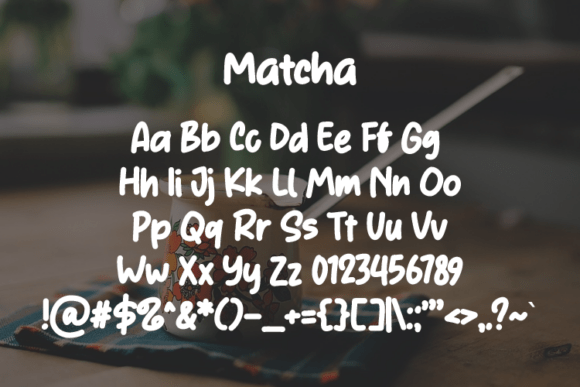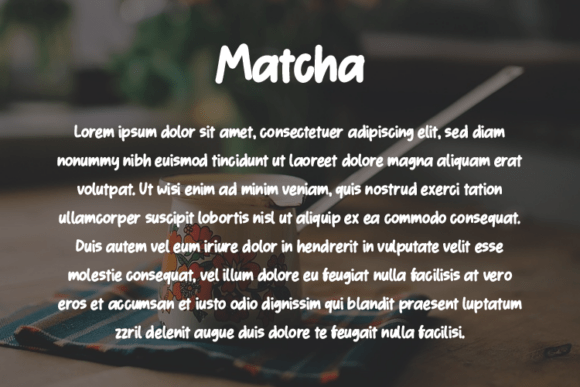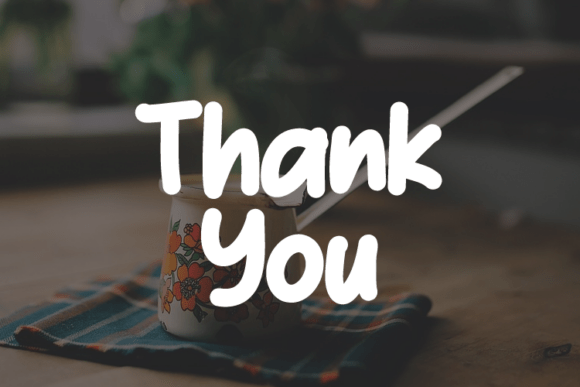
Introduction to Matcha Font
Remember that moment when you’re working on a creative project and you can’t find the right font to bring your vision to life? The frustration of scrolling through countless options, only to settle for something that’s just “good enough”? As designers, we’ve all been there. But what if I told you that there’s a game-changing font that’s about to make your design process a whole lot easier? Say hello to the Matcha Font, a modern and elegant typeface that’s designed to deliver high-quality results every time.
Key Features of Matcha Font
- Unique characteristics include a modern, minimalist aesthetic and a wide range of language support
Honest Review: Matcha Font
As a designer, I’m always on the lookout for high-quality design resources to elevate my creative projects. Recently, I had the chance to try out the Matcha Font, and I must say it’s been a great addition to my design arsenal.
- What works well: ✨ The Matcha Font is incredibly versatile and can be used for a wide range of design projects, from logos to typography. Its high quality is evident in its smooth lines and crisp edges.
- ⚠️ While the Matcha Font is a great free download, it’s not without its limitations. The font only comes in a few weights, which can make it difficult to achieve the desired level of contrast in some designs.
Overall, I’m really impressed with the Matcha Font and would definitely recommend it to fellow designers. It’s a great resource to have in your toolkit, and I’ve already used it in several projects with great results.
The Matcha Font is ideal for various design projects, including branding, packaging, and advertising materials. Its high-quality design and transparent background make it perfect for creative projects that require a unique and eye-catching look.